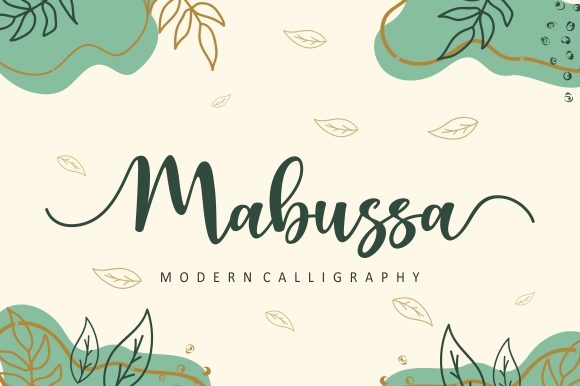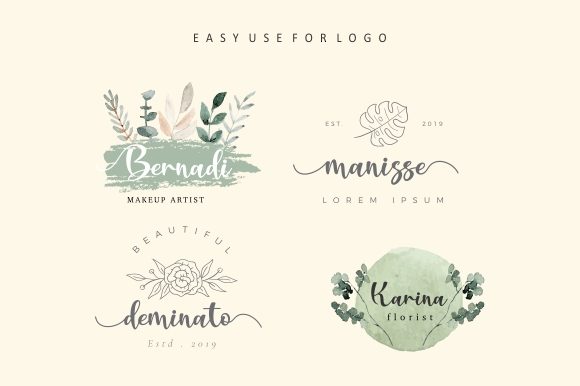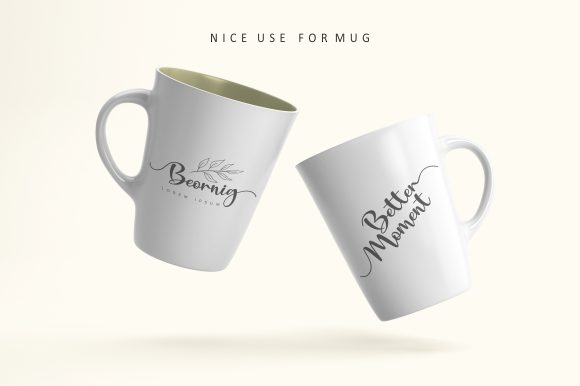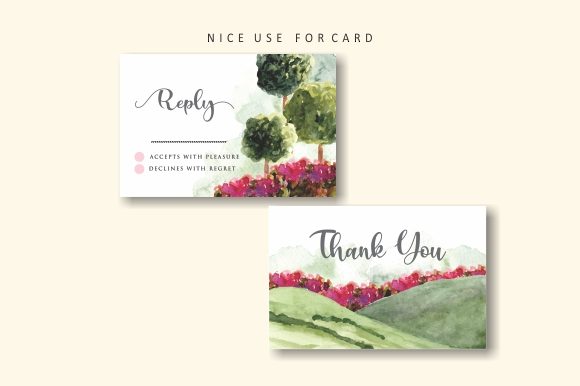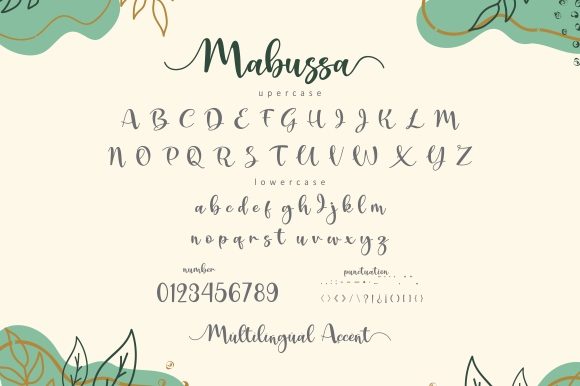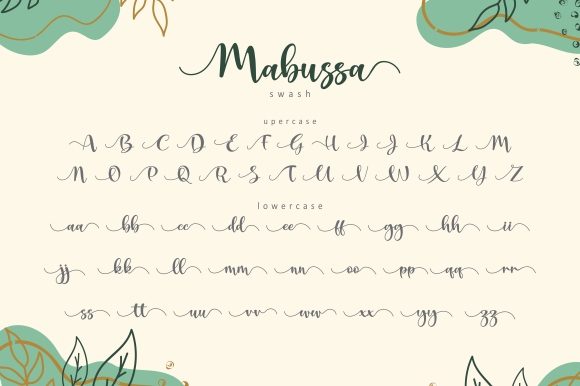
Mabussa Font
About Mabussa Font
Mabussa is a beautiful and dreamy handwritten font. Its distinct and well rounded letters make this font a masterpiece. This font is PUA encoded which means you can access all of the glyphs and swashes with ease!